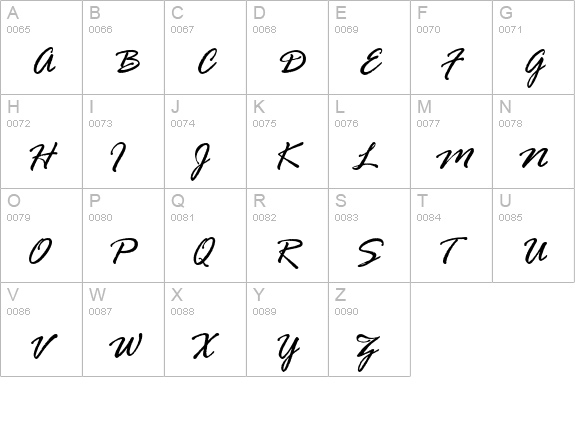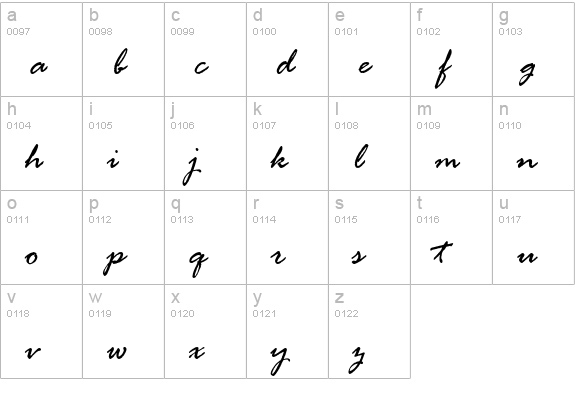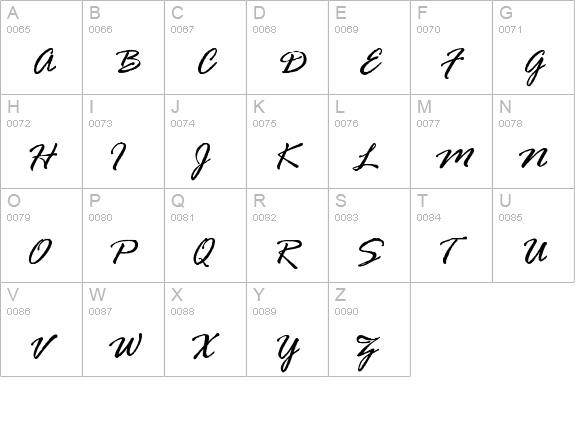
Rage Italic Font Details
Rage Italic is a distinctive, italic variant in the Rage typeface family \xE2\x80\x94 well suited to design and typography projects.
Rage Italic font is a stunning and expressive typeface that exudes elegance and sophistication. It is the perfect choice for those seeking to add a touch of flair and personality to their designs. With its bold and flowing letterforms, this font captures attention effortlessly, making it ideal for headlines, logos, invitations, and more. What makes Rage Italic font even more appealing is the fact that it is freely available to download at FontsMarket.com. This means that designers and enthusiasts alike can access this fantastic font without any cost, allowing them to explore its endless creative possibilities without any limitations. Whether you want to add a touch of sophistication to your wedding invitations, create eye-catching headlines for your website, or design a memorable logo for your brand, Rage Italic font is the perfect choice. With its free availability at FontsMarket.com, you can easily incorporate this exquisite typeface into your projects and elevate them to new heights of elegance and style.